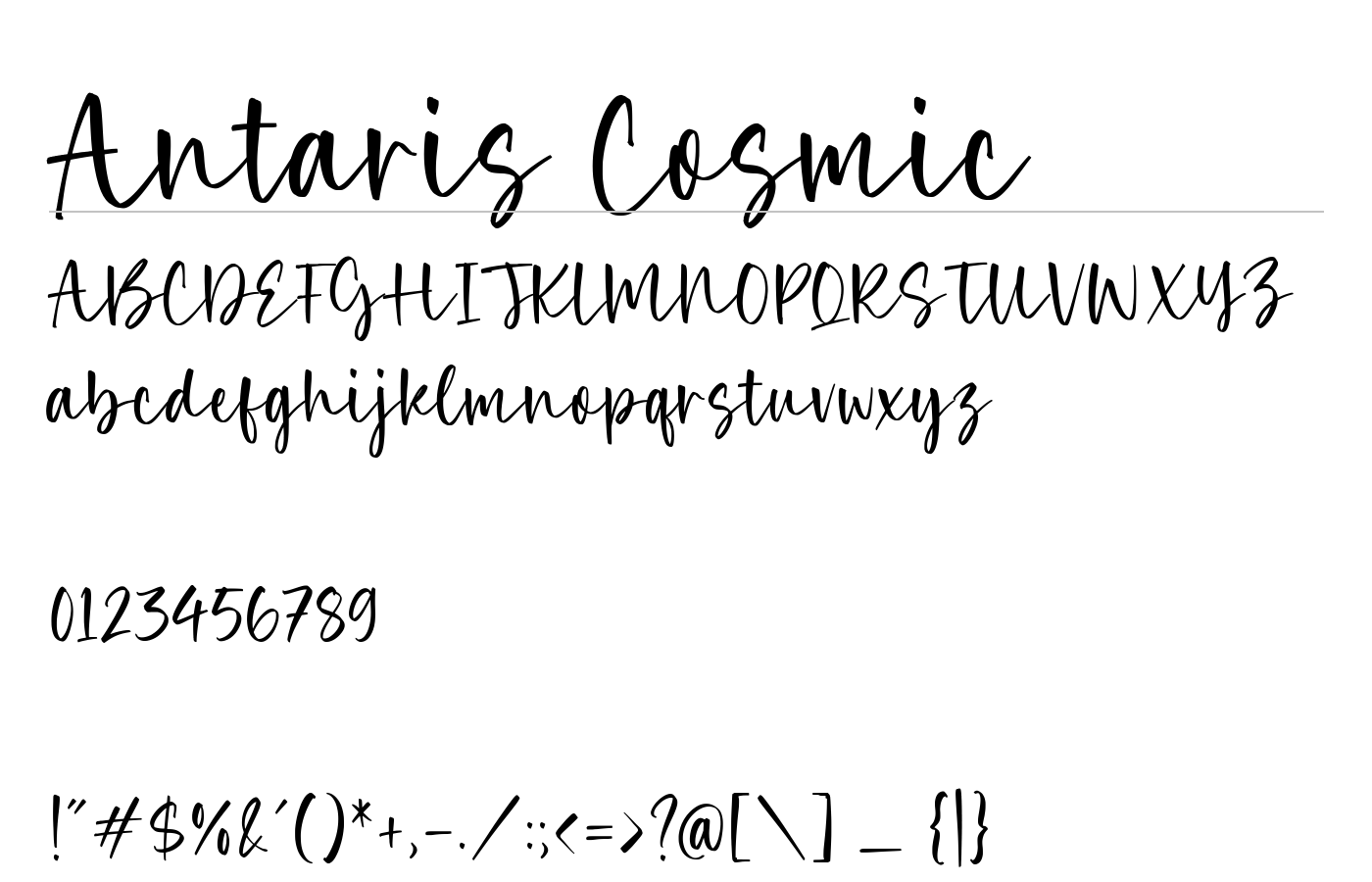
Antaris Cosmic is a casual, handwritten script font with a light and airy feel, featuring playful, irregular strokes that mimic natural penmanship. Its medium x-height and slightly narrow letterforms create an approachable, friendly style perfect for creative projects, personal branding, and informal editorial designs. This font works well for headlines, logos, and invitations where a warm, hand-crafted touch is desired.
Antaris Cosmic Font
About Antaris Cosmic Font